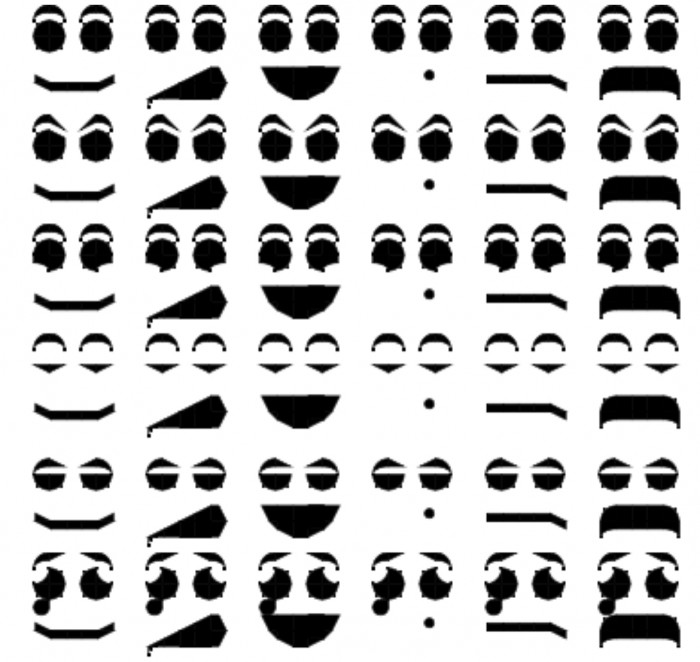
• Uppercase is eyes. Lowercase is mouth.
It only works in Uppercase-Lowercase pairs, because the eyes' width is 0.
Aa Ab ⋯ Af
Ba Bb ⋯ Bf
⋮   ⋮   ⋱  ⋮
Fa  Fb ⋯ Ff